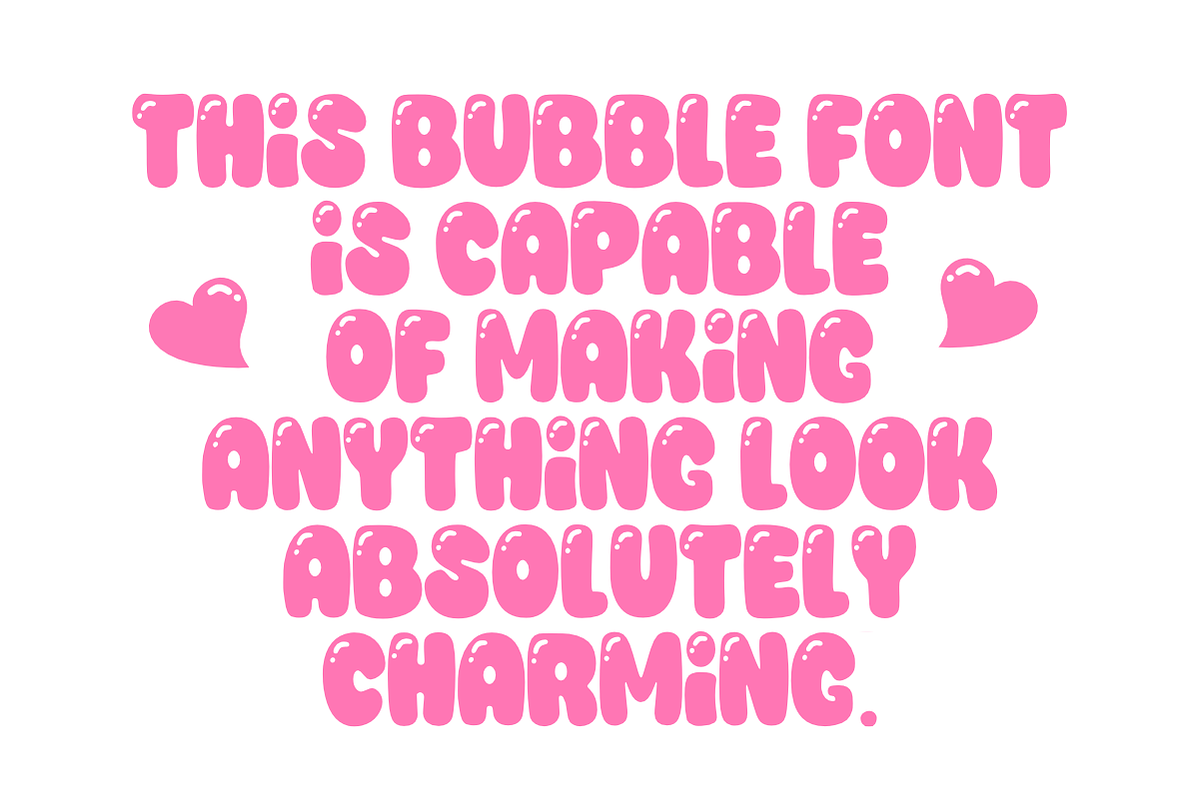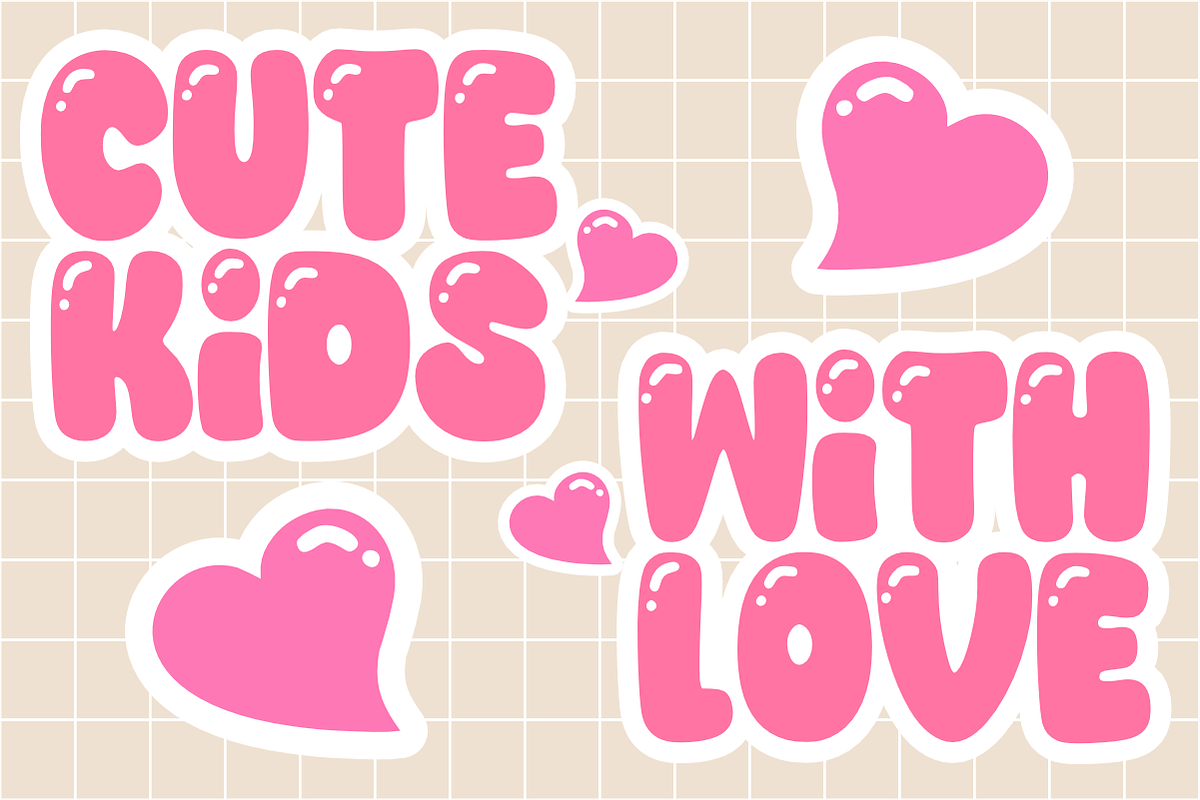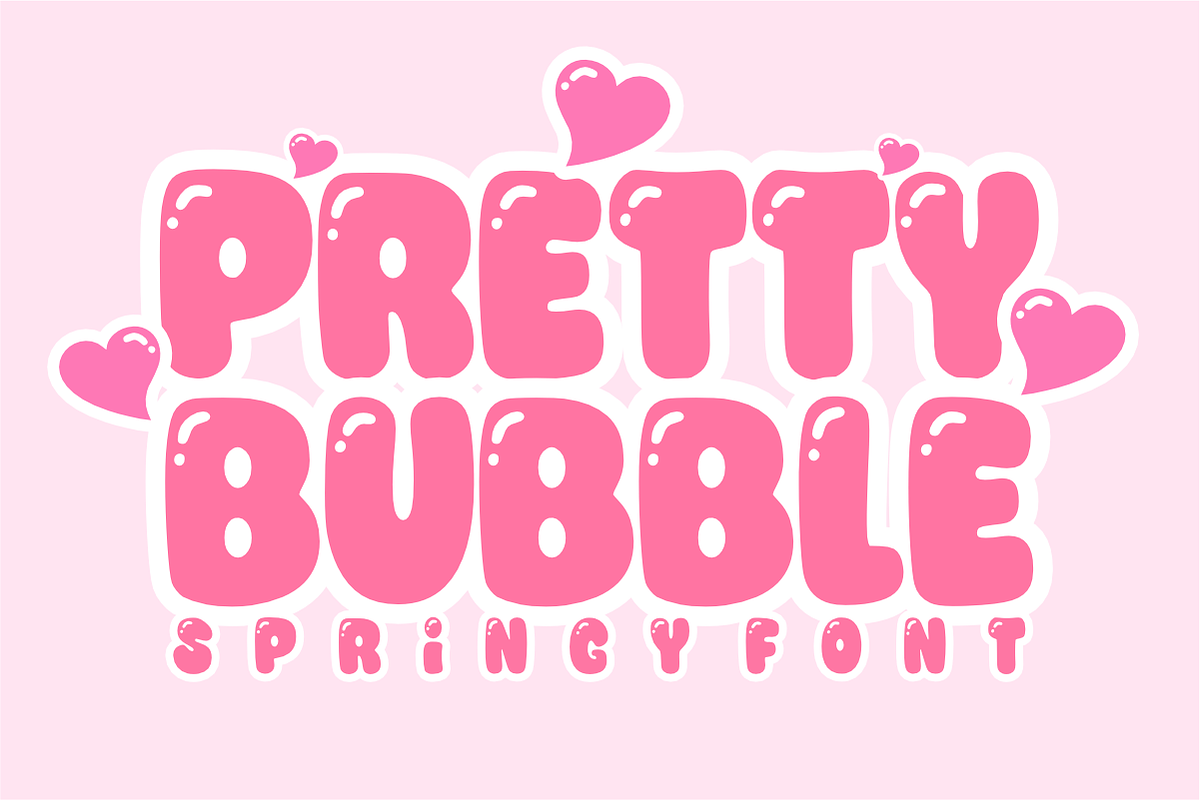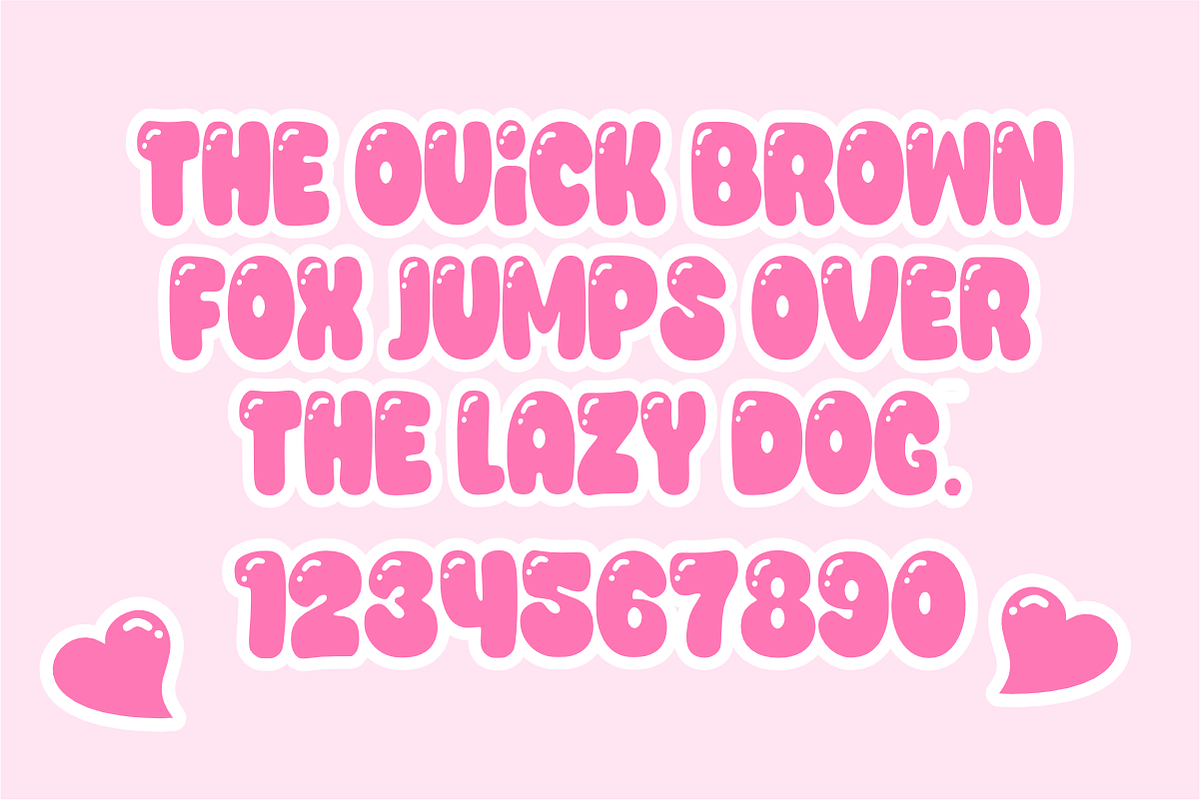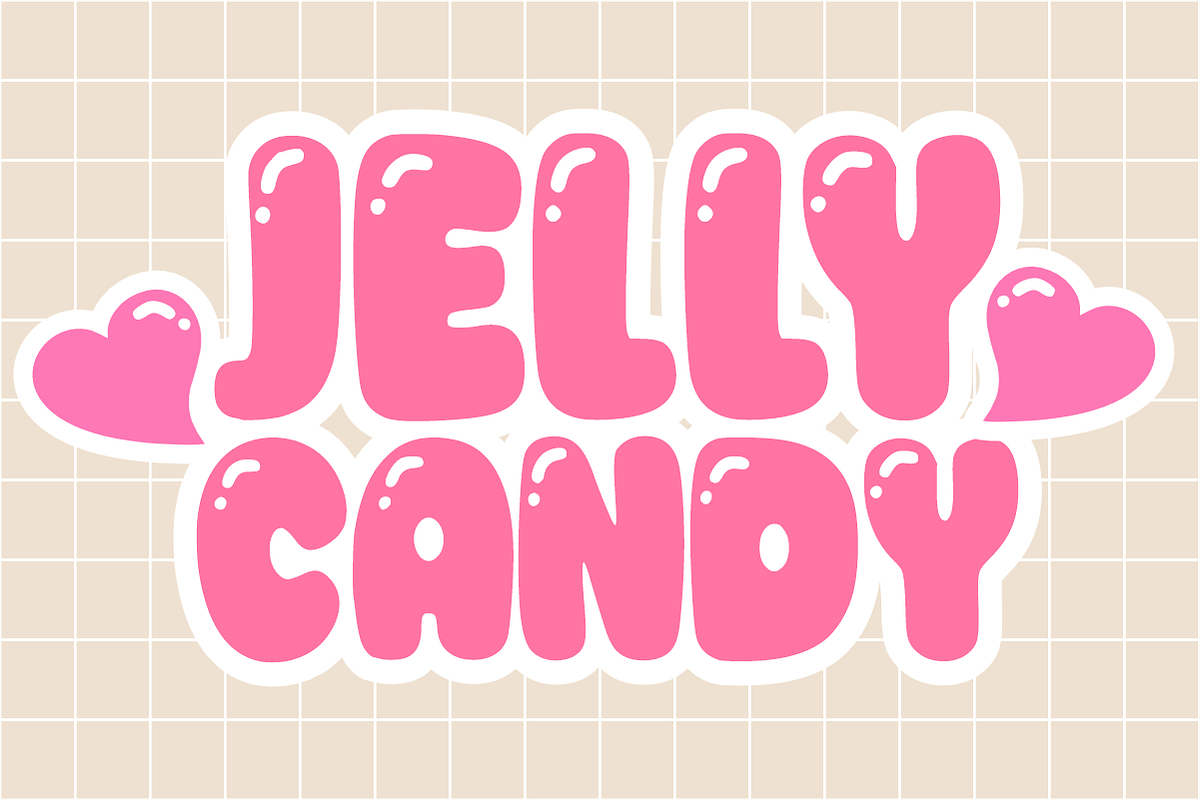
Pretty Bubble - Cute Springy Font
Pretty Bubble is a sweet, chunky display font featuring a playful balloon style with a cheerful, springy bounce. Brimming with whimsical charm, this glossy bubble font is designed to give your custom stickers, kids' products, and craft projects an instant happy pop. Every character features clean vector paths, ensuring a flawless high-resolution print and smooth, effortless cutting on Cricut and Silhouette machines.
Uppercase Character Set
Numbers & Basic Punctuation